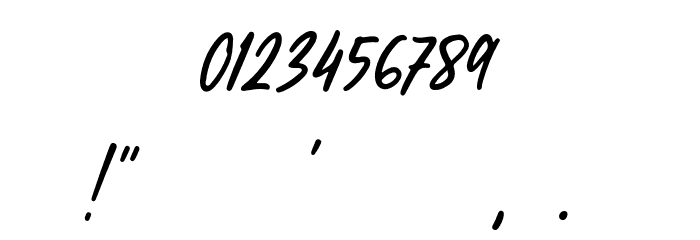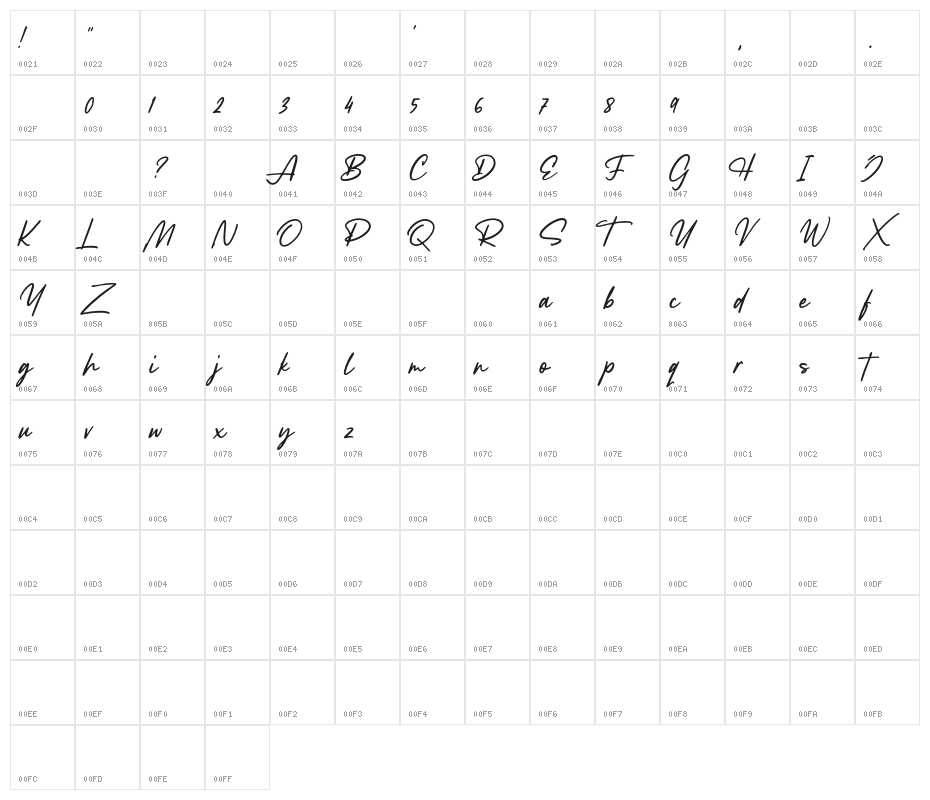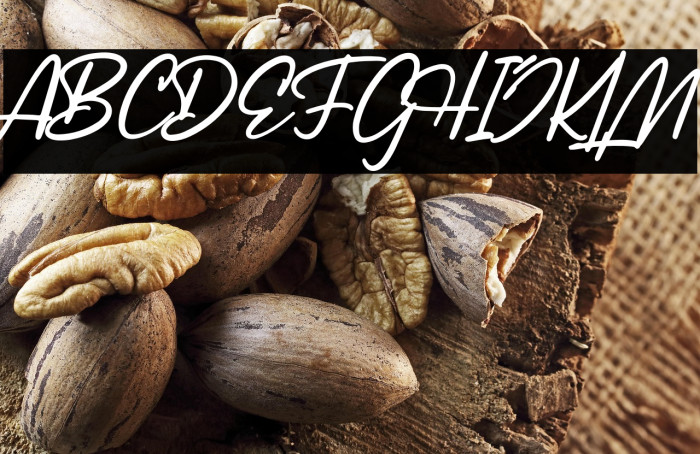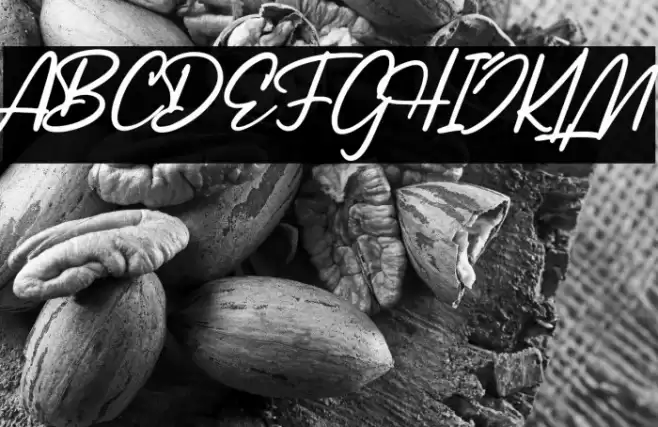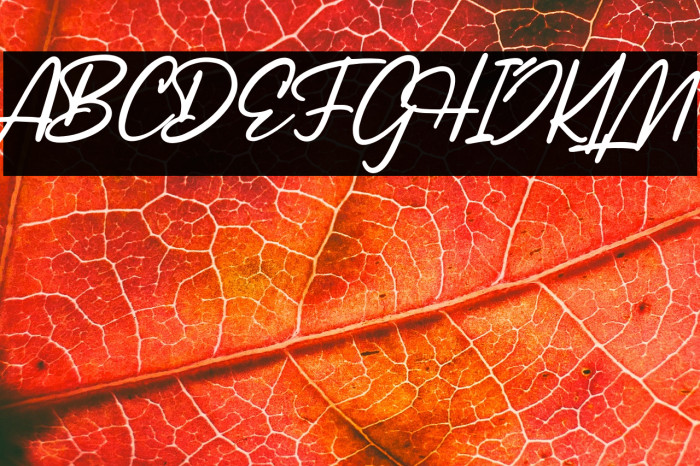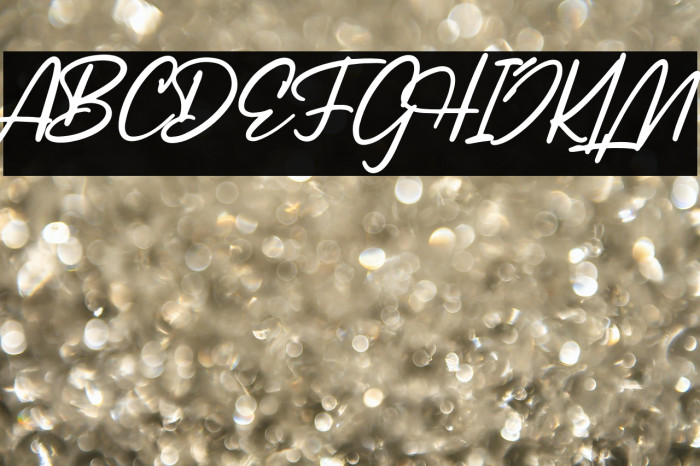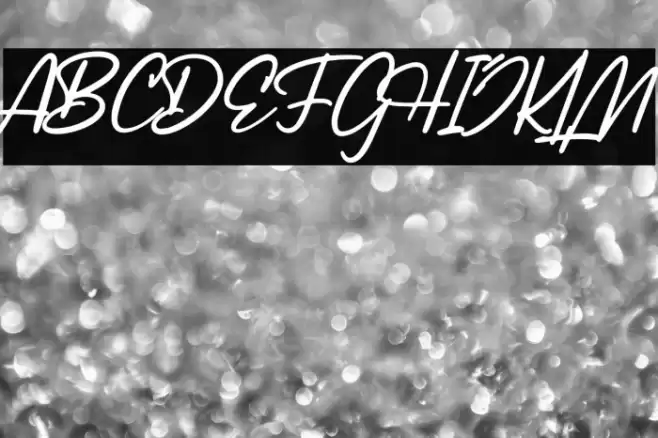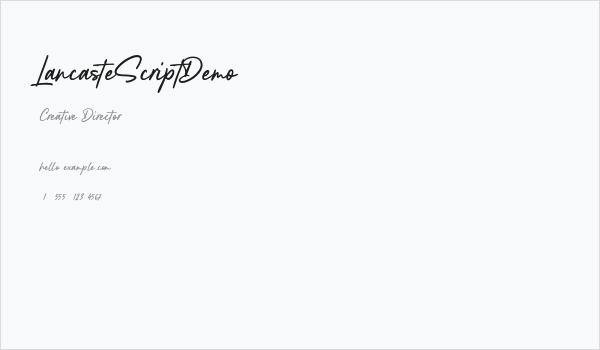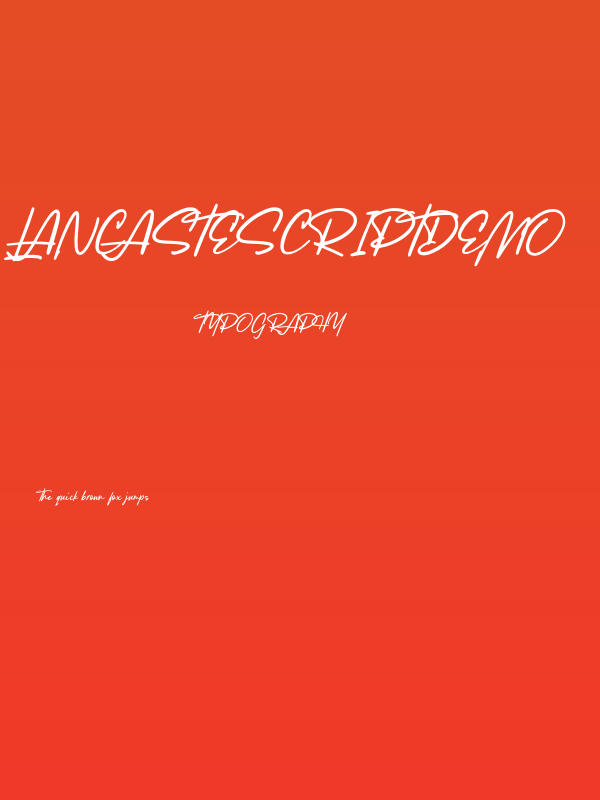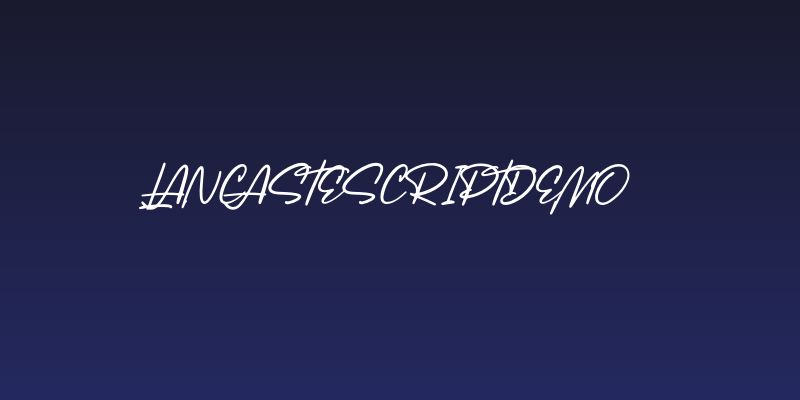
LancasteScriptDemo Font
LancasteScriptDemo Description
This font is a dynamic and expressive script style that mimics the fluidity and elegance of natural handwriting. The uppercase letters are bold and sweeping, with a sense of movement and flair, while the lowercase letters maintain a consistent flow with slightly more restraint. The numbers and special characters complement the letterforms with similar curves and strokes. The overall appearance is both artistic and legible, making it suitable for creative projects that require a personal touch.